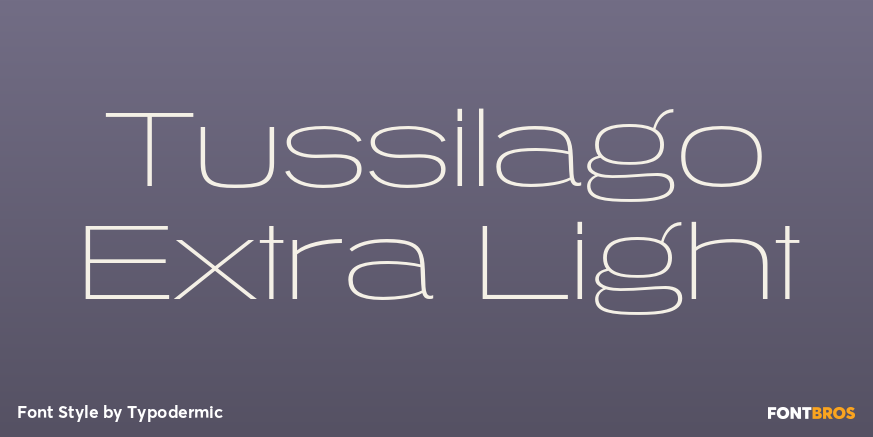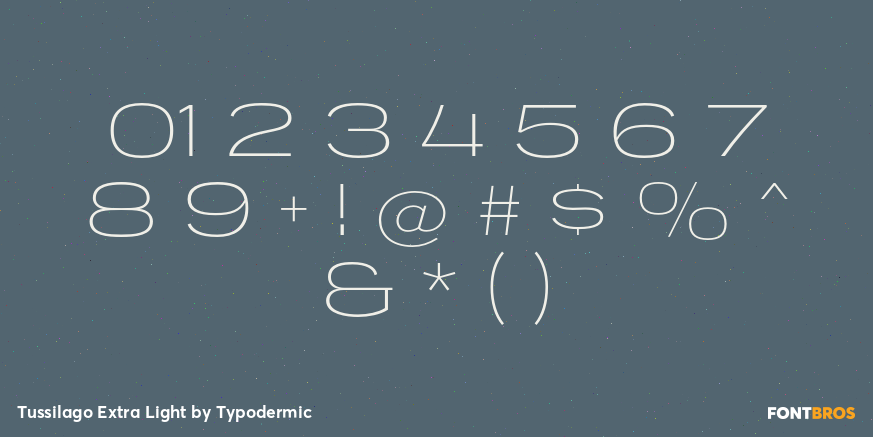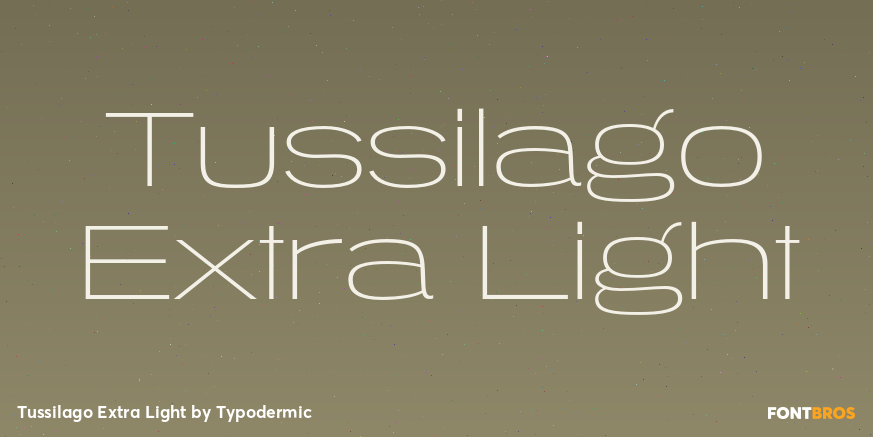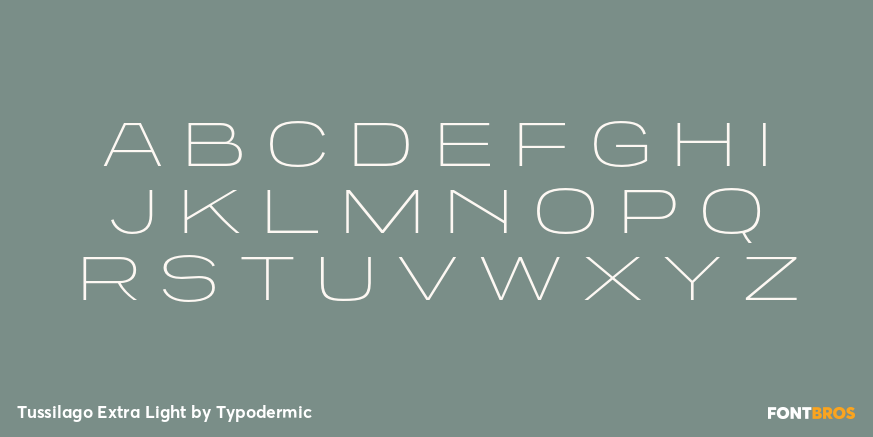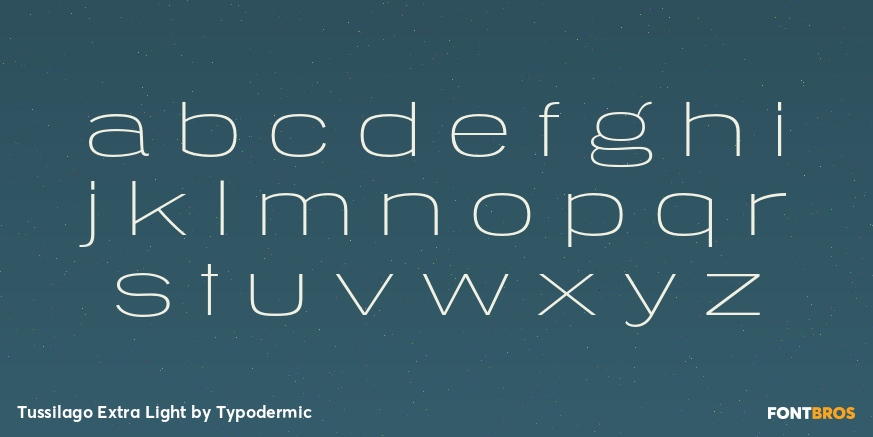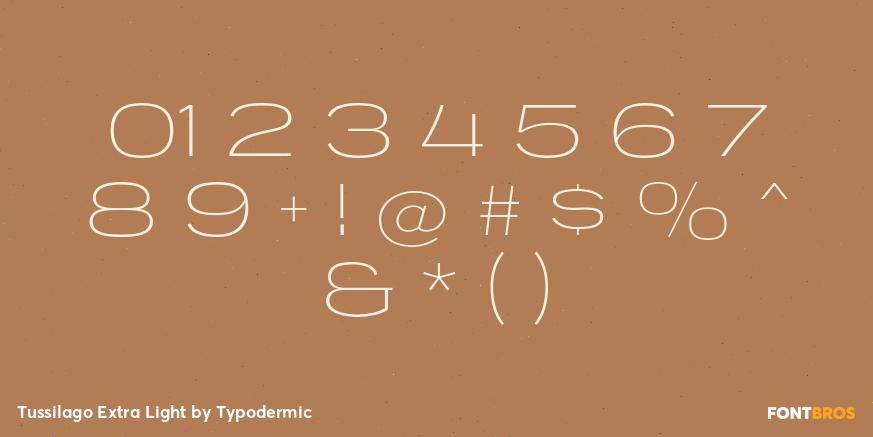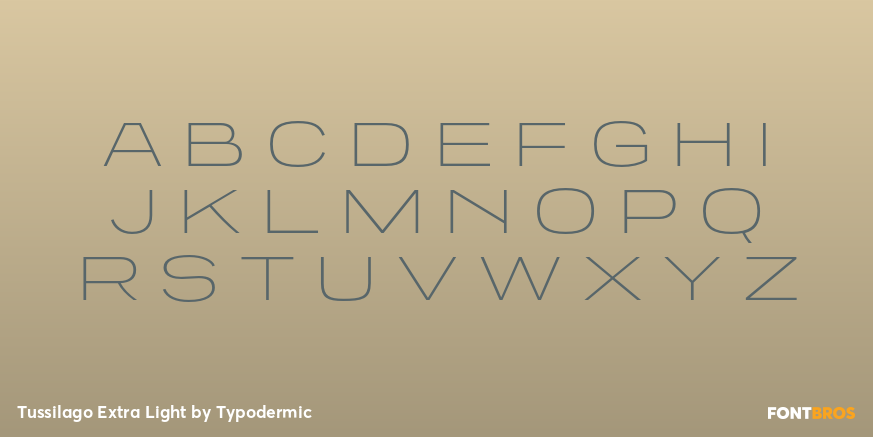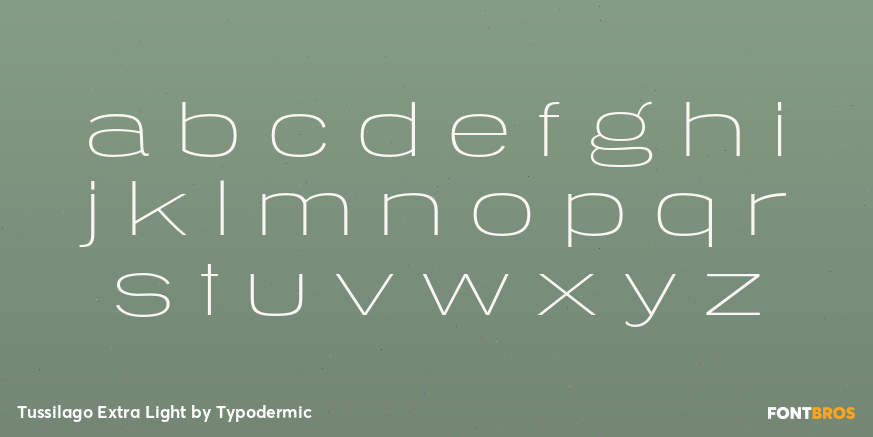
Buy NowSome products have horizontal space to spend. A bicycle down tube, linear pendant, amplifier fascia, range hood or entrance canopy can leave a normal-width wordmark looking undersized, while added tracking fills the space without adding much substance. Tussilago builds that width into the letterforms.
Tussilago is a wide sans-serif with geometric construction, low contrast and sturdy, open forms. Its proportions carry an echo of mid-twentieth-century display typography, but the design is less rigid than a strict geometric and avoids the look of a period reproduction. It suits contemporary products that need to appear engineered and deliberately designed without drifting into generic tech minimalism or science-fiction styling.
Bicycle and e-bike frames are a natural fit. Down tubes, top tubes, integrated battery housings and cargo-bike bodies provide long, shallow surfaces where a marque or model name can become part of the object’s proportions. Similar opportunities appear in linear architectural lighting, range hoods, built-in appliance fascias, heat-pump cabinets, ventilation equipment and other horizontally proportioned building systems.
Audio and electronic equipment offer another kind of long frontage. Soundbars, amplifiers, synthesizers, keyboards, rack-mounted hardware and mixing equipment give product-family names and model designations room to spread laterally. Tussilago’s geometry feels engineered without resembling interface typography, making it especially useful for equipment intended to look durable rather than momentarily futuristic.
At architectural scale, Tussilago works for entrance canopies, showroom fascias, concourse identifiers, broad directory headings and building names with enough wall space to exploit its width. Its modernist undertone also suits exhibitions concerned with industrial design, architecture, transportation and domestic technology, where contemporary typography may need to coexist with mid-century objects without imitating their original lettering.
The family ranges from light, expansive display styles to heavier weights suited to equipment names and frame lettering, with matching italics and both old-style and lining numerals. Tussilago can handle short supporting copy, but its width is most useful when space is treated as an asset: long products, broad fascias, generous signs and wide pages where extended proportions can do practical work.